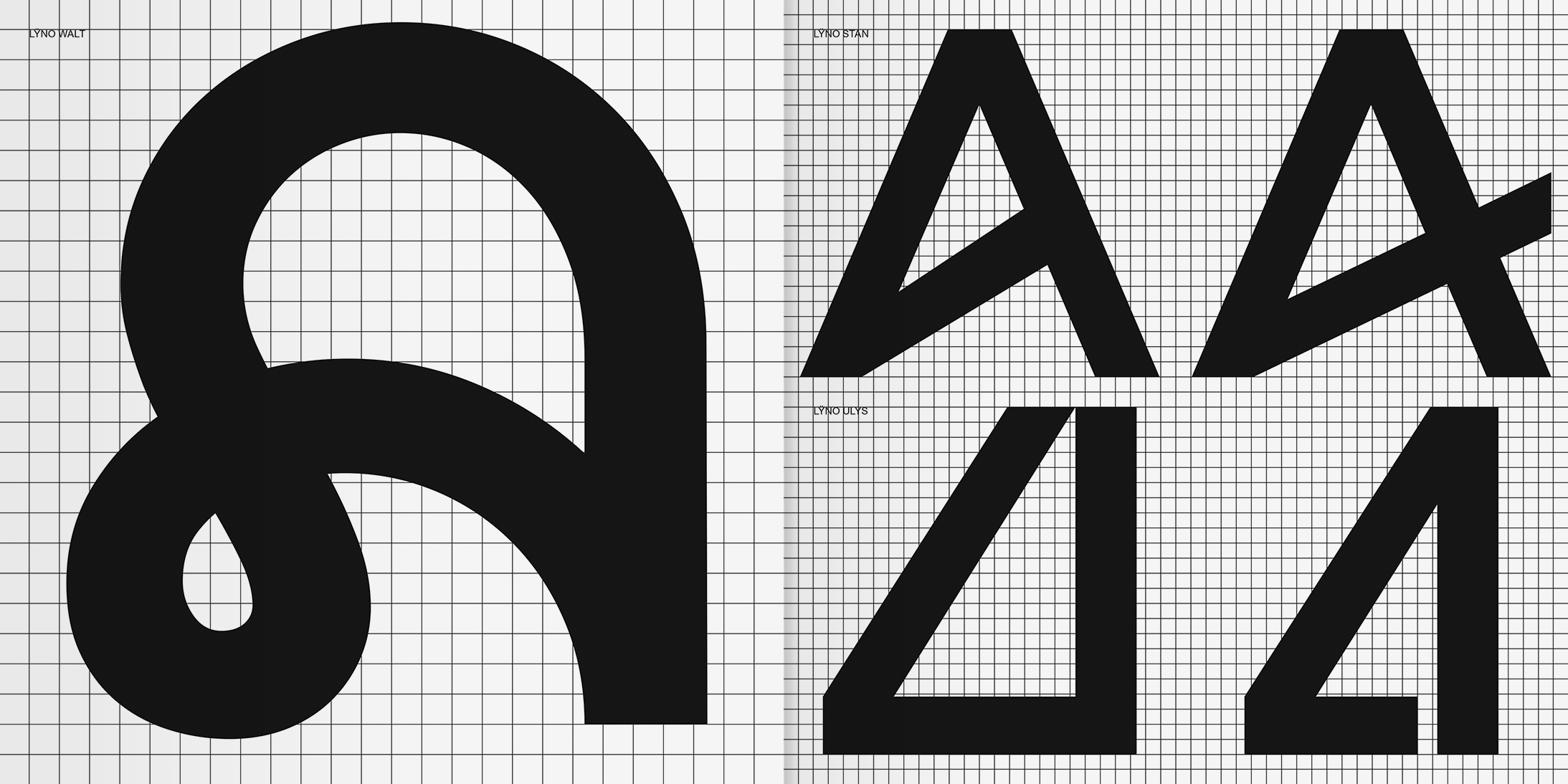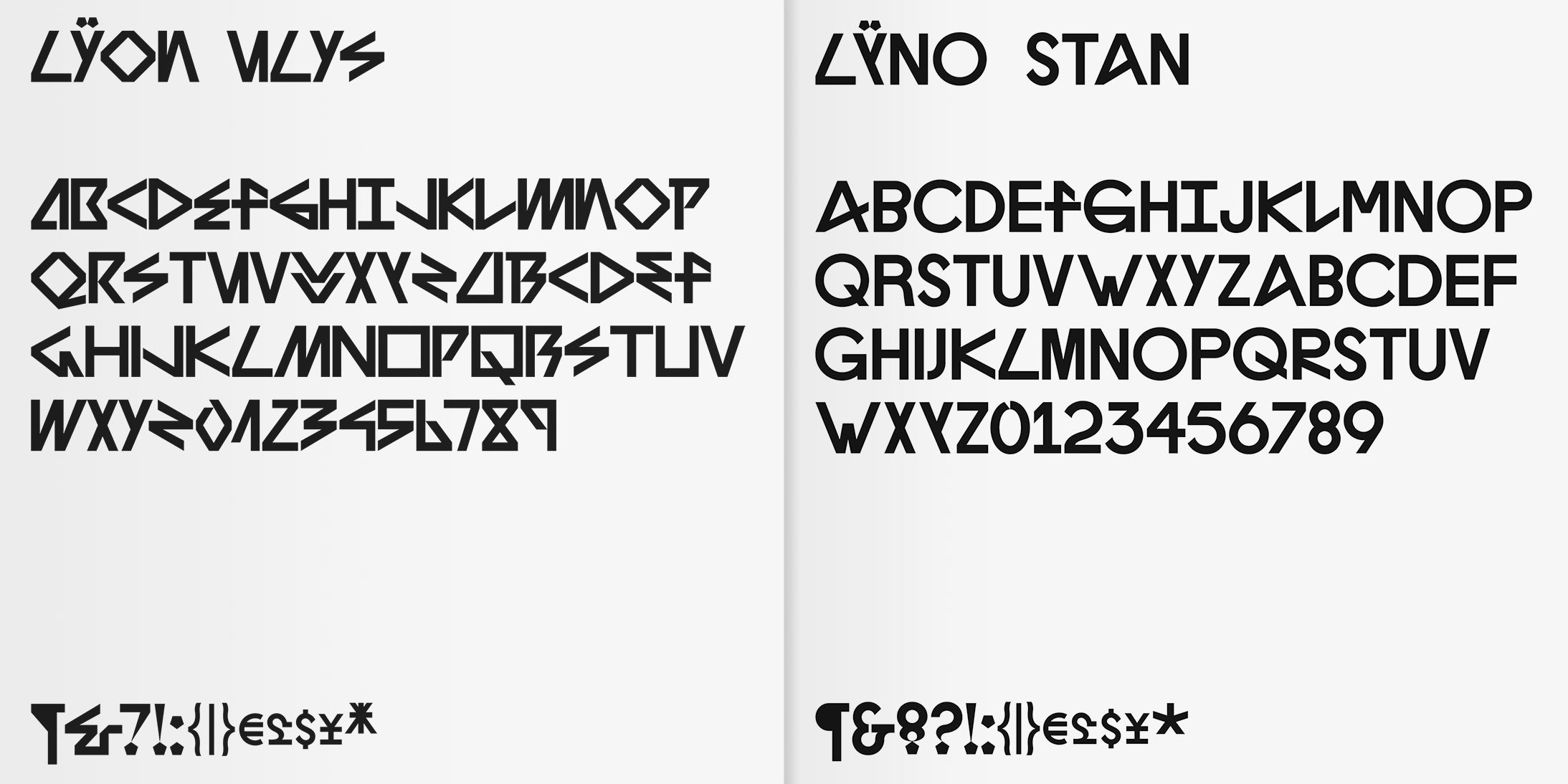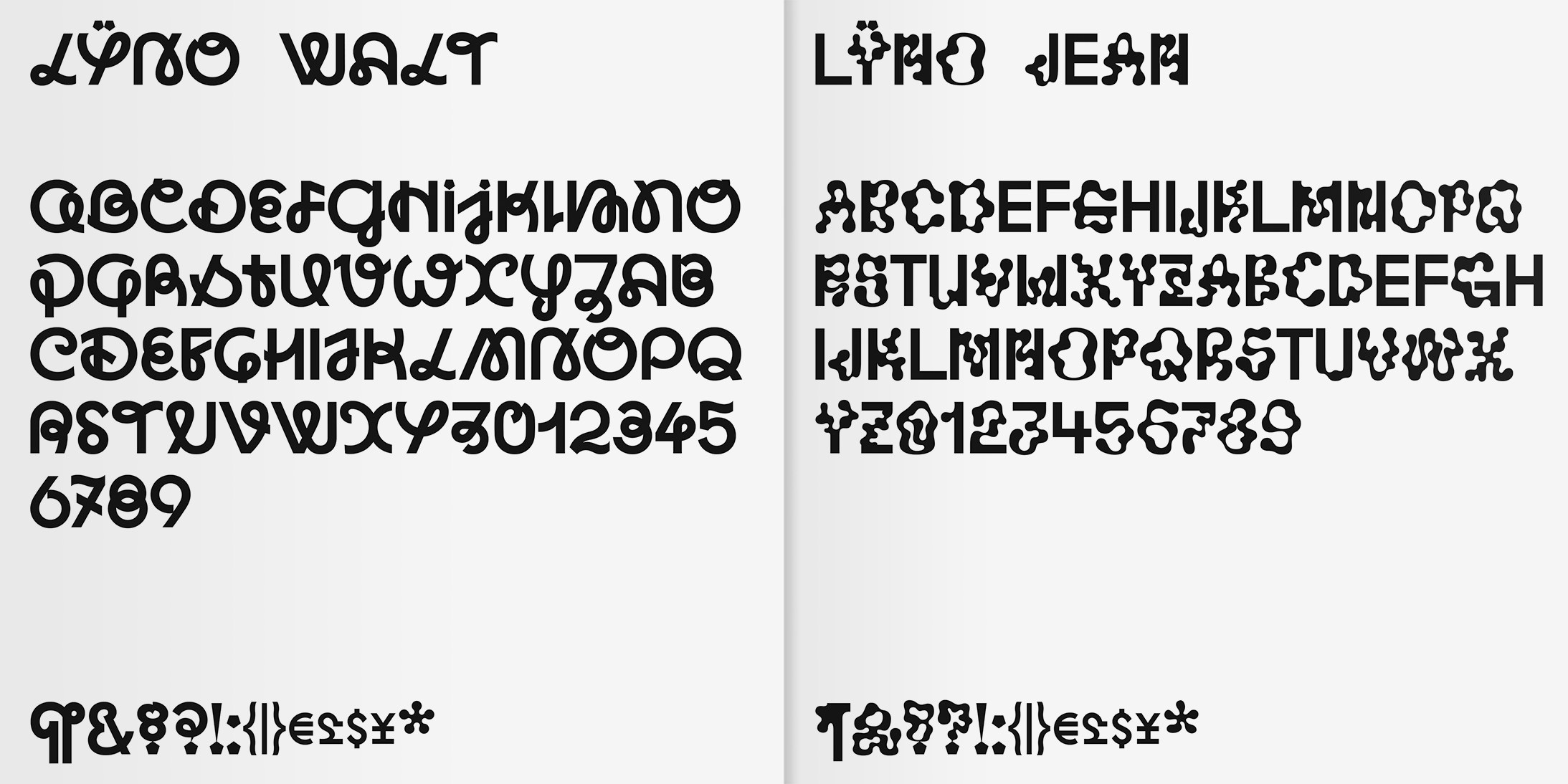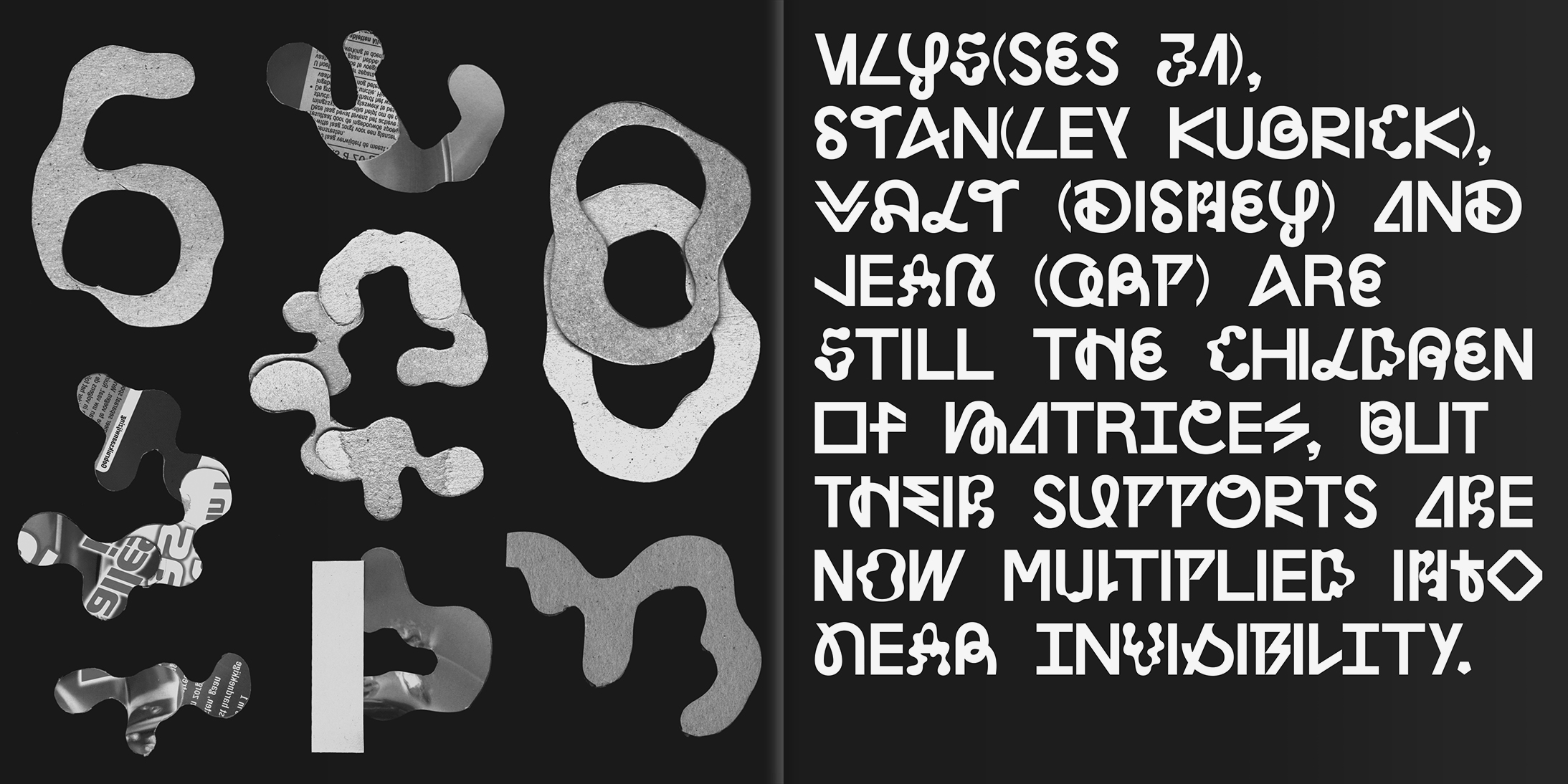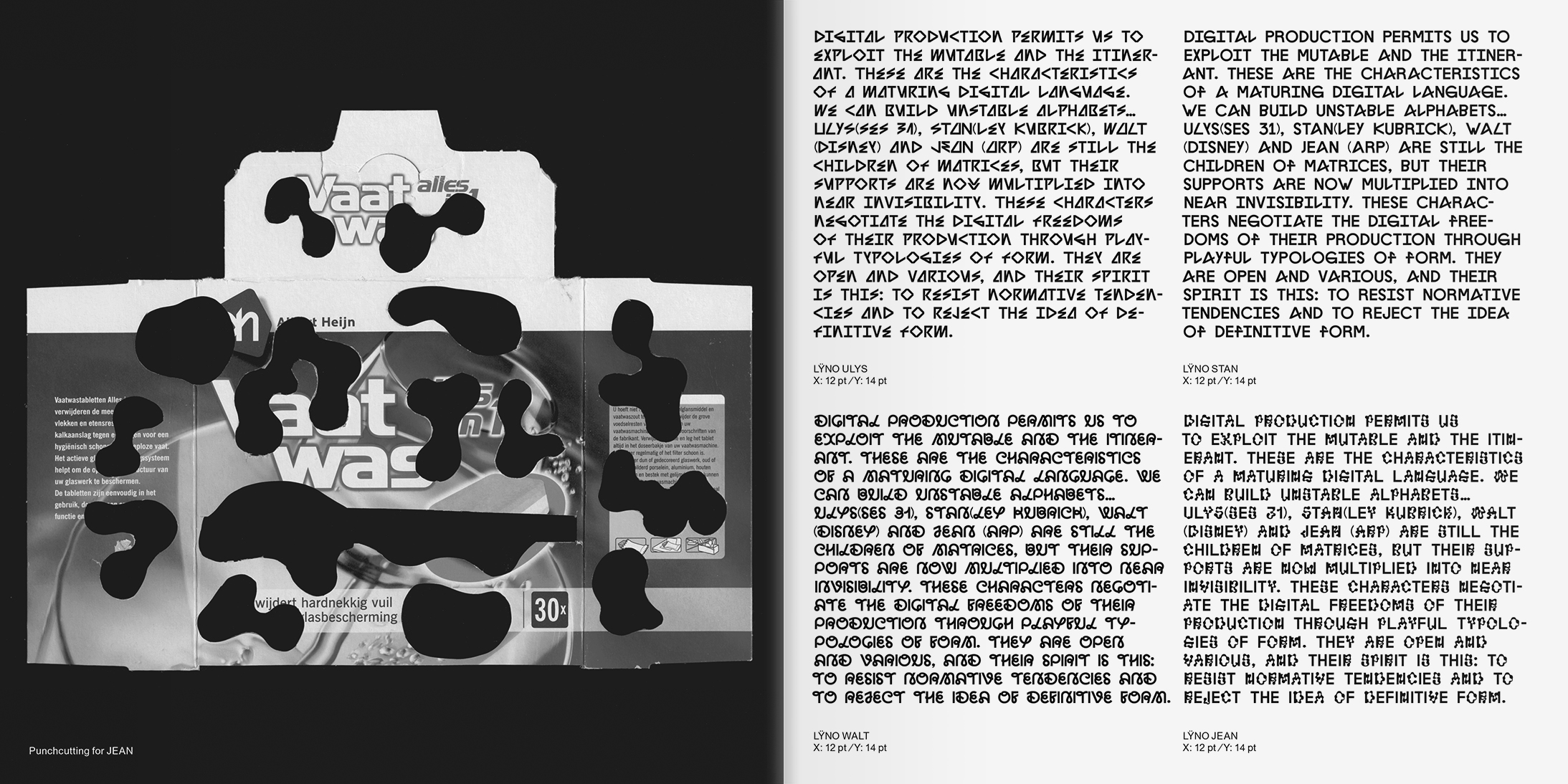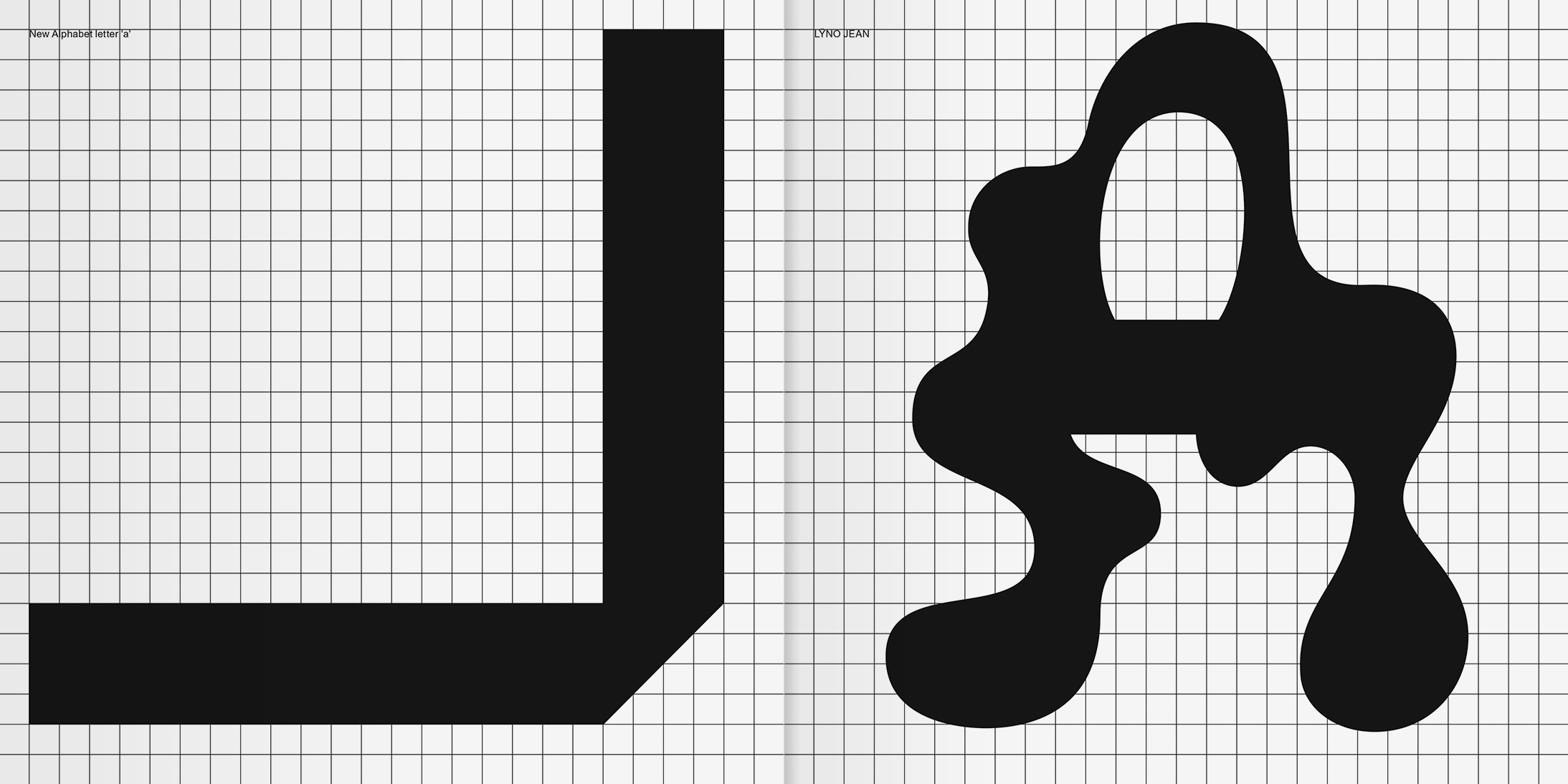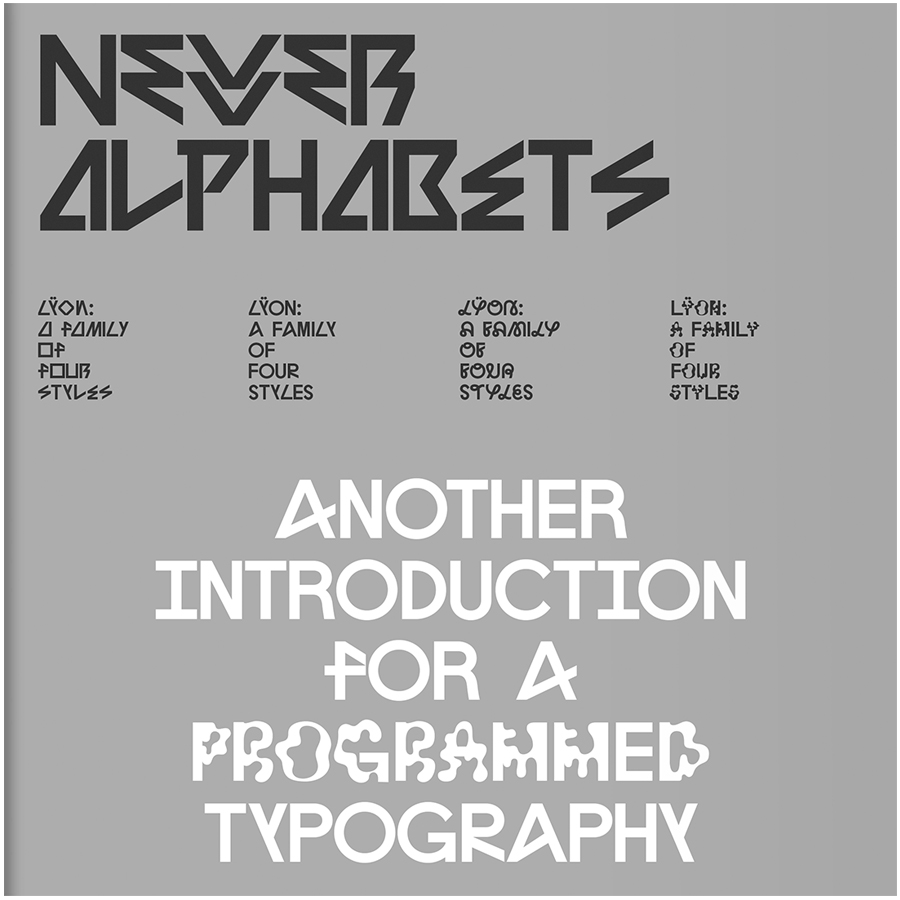
Styles
Jean, Stan, Ulys, Walt
Years
2009 – 2012
Publisher
RP Digital Type Foundry
Credits
Lÿno designed by Karl Nawrot and Radim Peško.
Font engineering and mastering by Radek Sidun.
Wim Crouwel, New Alphabet, 1967
KN & RP, Newer Alphabets, 2010
The type specimen shown below appears in Newer Alphabets, a booklet initially conceived as a supplement to the Korean magazine GRAPHIC #16 Type Archive Issue published by Propaganda Press in 2010 (link). Booklet designed by Karl Nawrot and Radim Peško. Text written by James Langdon. Images by KN (pp. 6, 12) and Karel Martens (Soyuz Landing in Kazakh Prairie, pp. 18 – 19). Revised and updated in May 2012.  © 2010, 2012 KN & RP.